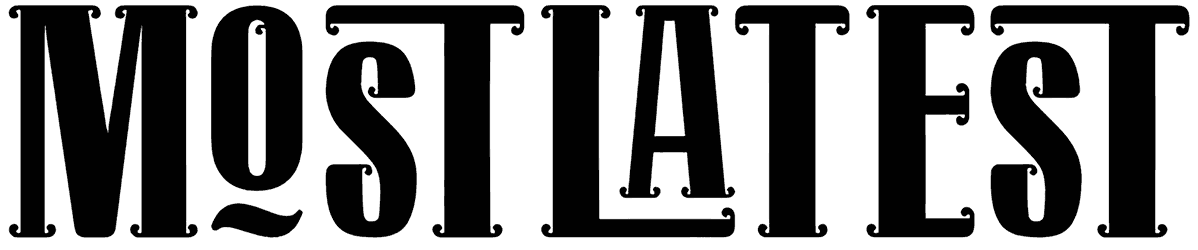
Bahila Font
A joy, minimal vintage outward can give a chic and confident look to your design. As a whiskey font with a strong aesthetic and classic mood, Bahila can perform for a mass of projects with standard themes.
So, get a move on and use this A-Z versatile font for your coming creations like logotypes, magazines, posters, movies, fashion-related designs, or anything you want. RB assurance you to get a pleasant viewing!
Designed by: TypeScrib Studio